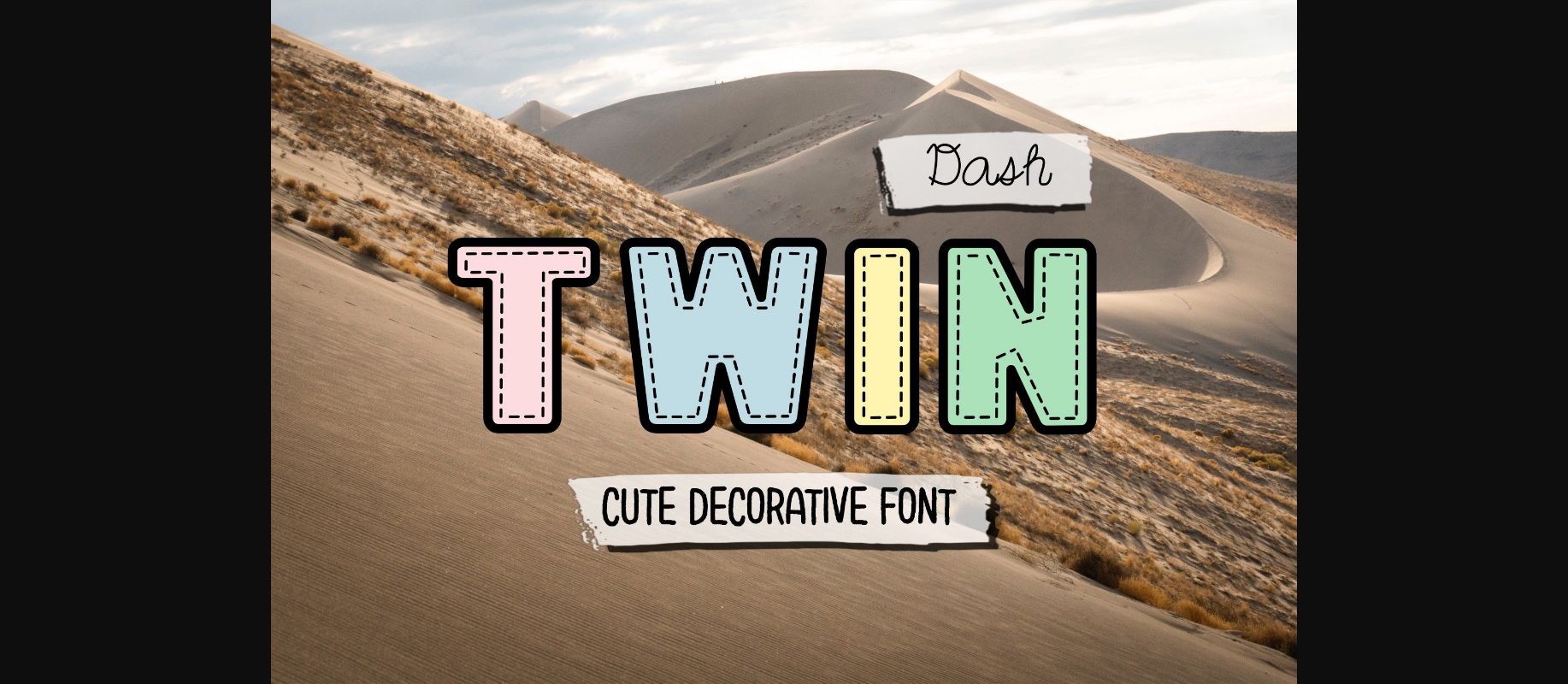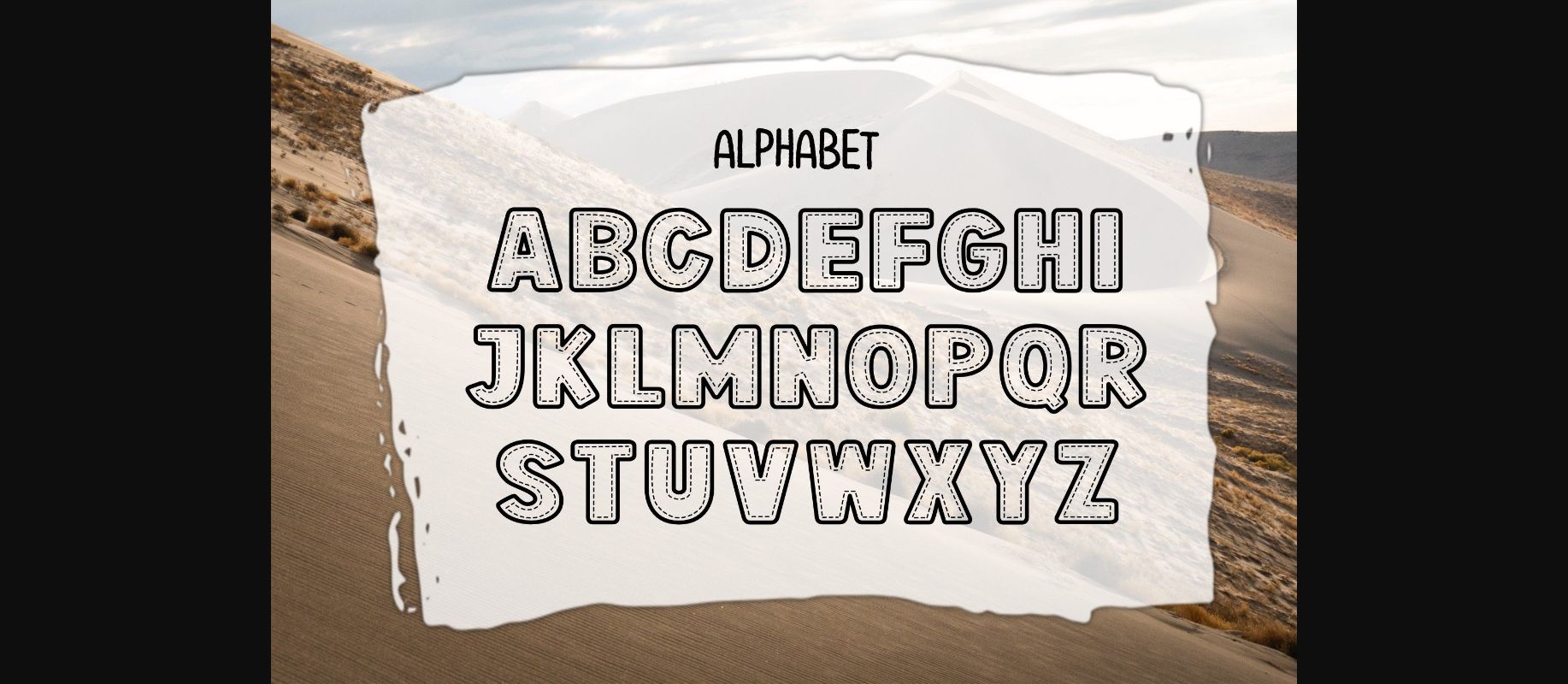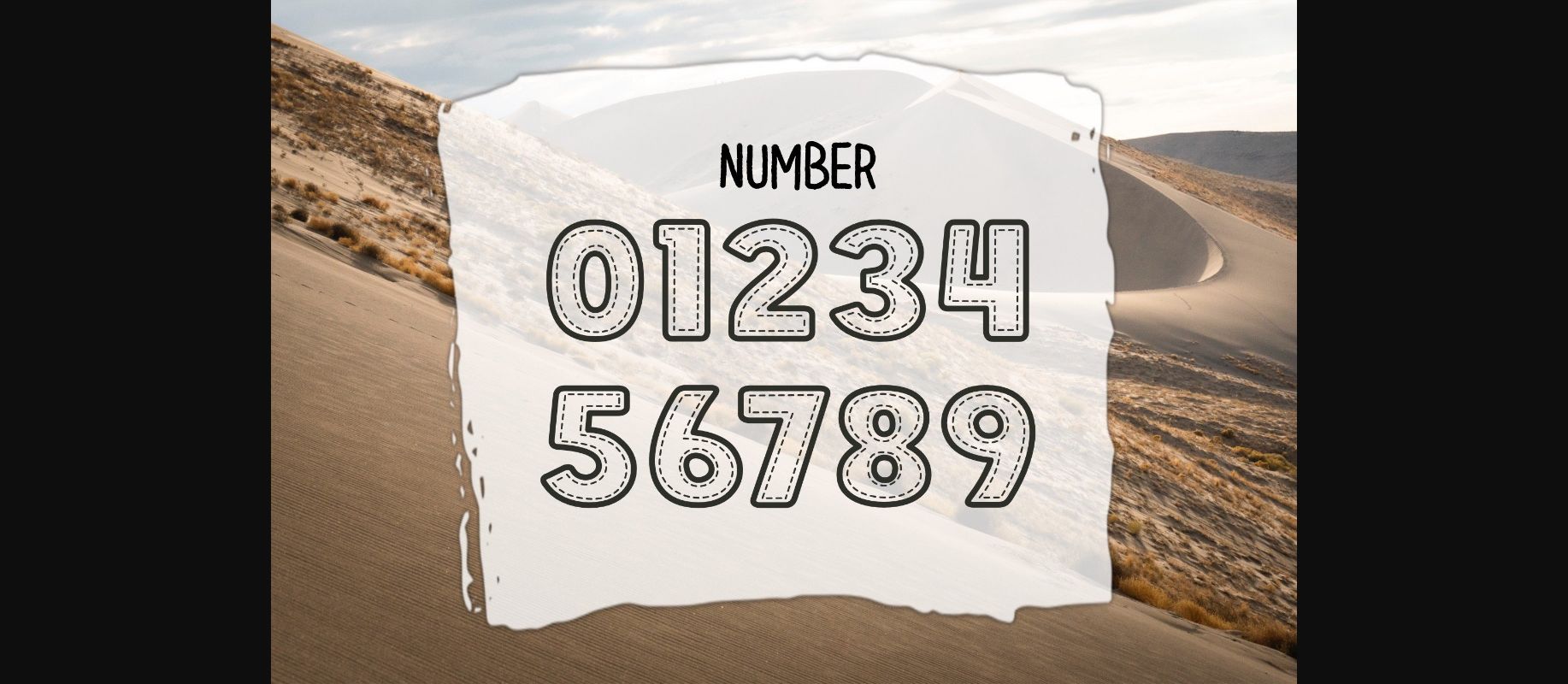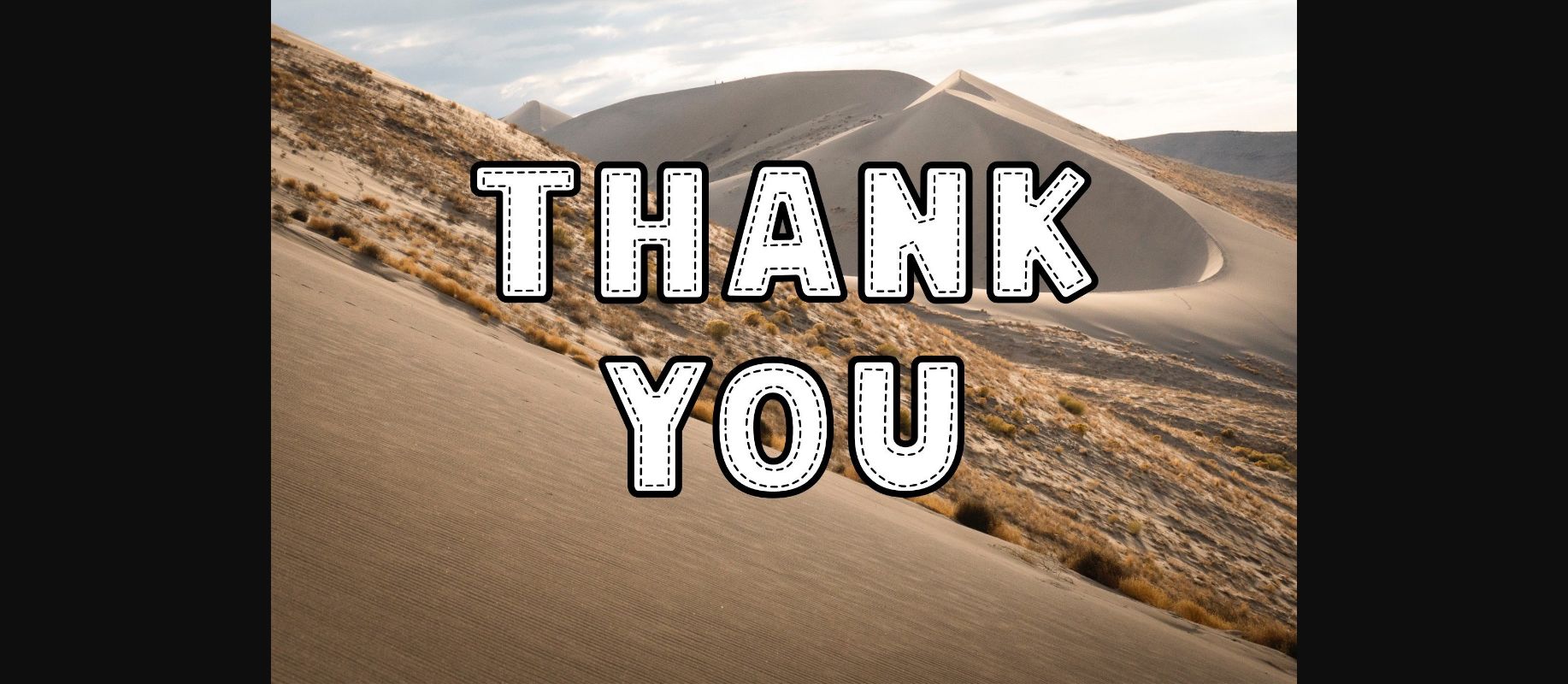
Twin Dash Font
About Twin Dash Font
Twin Dash is a Decorative font. This font is the perfect fit for all of your logos, branding, social media, crafty DIY projects, and much more!